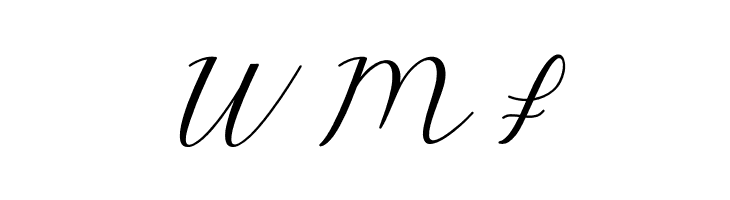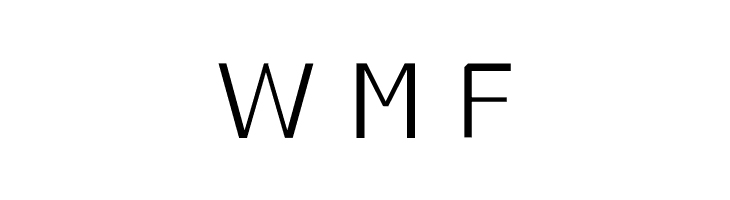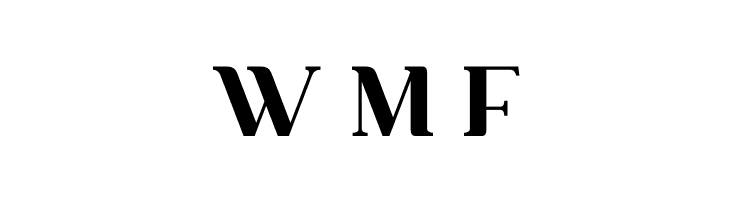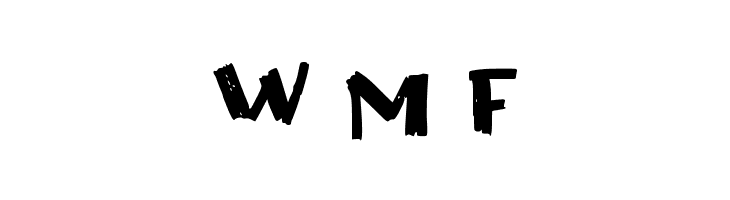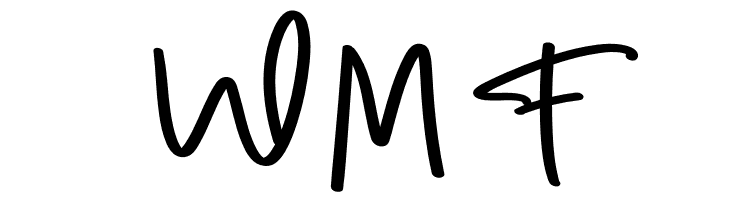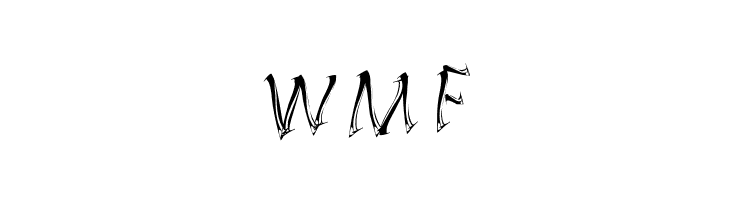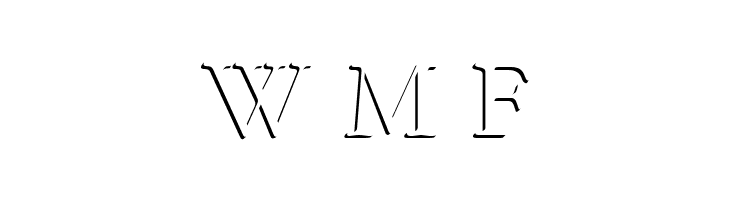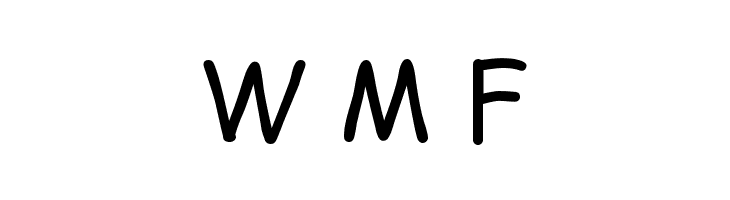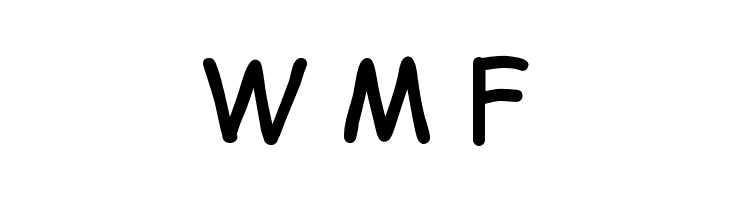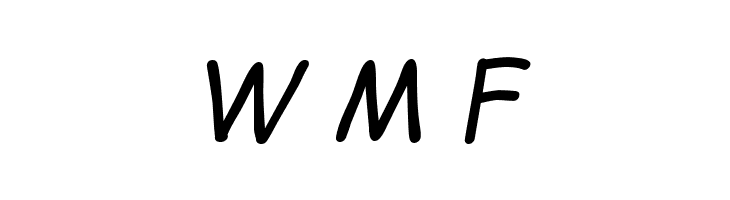
EMcomic-Regular Font
A playful, hand-drawn style font with rounded, comic-like characters.
EmeleyScript-Italic Font
A graceful and flowing script font with elegant, connected letters.
EmeleyScript-Italic Font
An elegant and flowing script font with sophisticated cursive letters.
EMELIAN Font
A modern, geometric sans-serif font with consistent stroke thickness and balanced spacing.
Emelinah Font
Elegant handwritten script font.
emely bllosam Font
A playful, whimsical script font with a handwritten aesthetic.
Emely Days Font
A playful, hand-drawn font with quirky, irregular shapes.
emely love Font
A playful, cursive font with a romantic and elegant style.
Emelyday Font
A lively handwritten font with dynamic and expressive strokes.
Emelynd Font
A graceful and elegant script font with flowing curves and decorative swashes.
Emelystta Font
An elegant script font with flowing, high-contrast strokes and ornate flourishes.
Emelystta Italic Font
A graceful, flowing script font with delicate, thin strokes and connected characters.
EMEN Lowercase Font
A bold, rounded font with a modern and playful style.
EMEN Text Font
A bold, rounded font with a modern and friendly style.
Emerald Font
A bold, playful script font with a handwritten style.
Emerald Beacon Font
Emerald Beacon 3D Font
A bold, geometric 3D font with sharp edges and a modern style.
Emerald Beacon 3D Italic Font
A bold, 3D italic font with a futuristic and dynamic style.
Emerald Beacon Condensed Font
A bold, geometric, and condensed font with sharp angles.
Emerald Beacon Condensed Ital Font